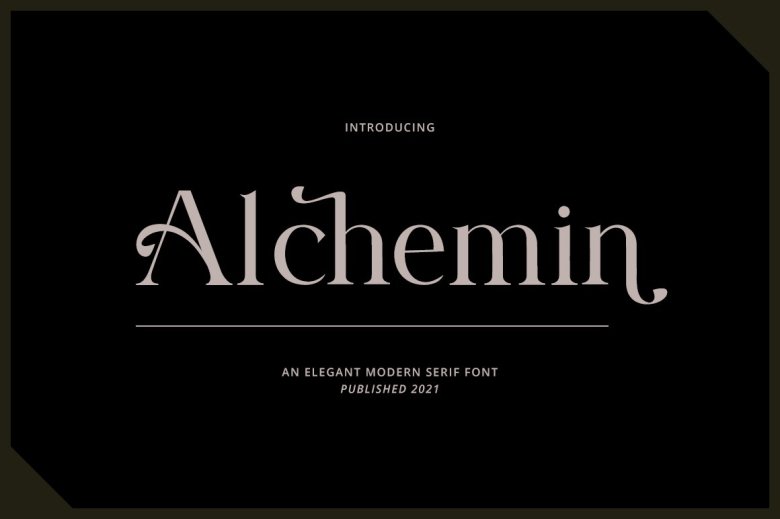
Alchemin Font
Alchemin Serif Font is an elegant serif typeface. This font will be an asset to every font library, no matter what the campaign, because it can improve any design.
Alchemin Serif Font